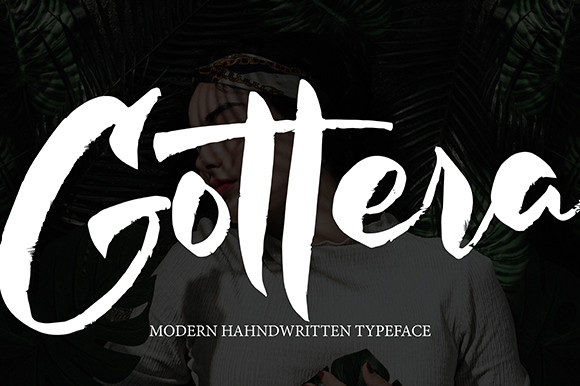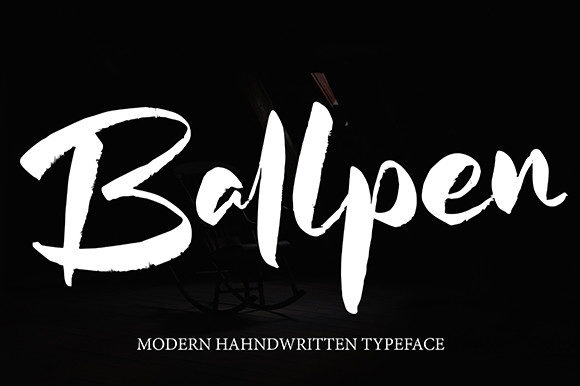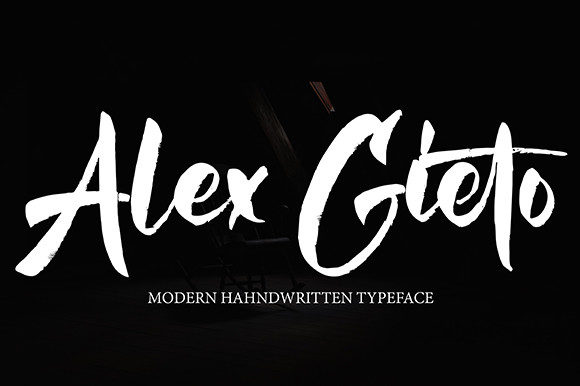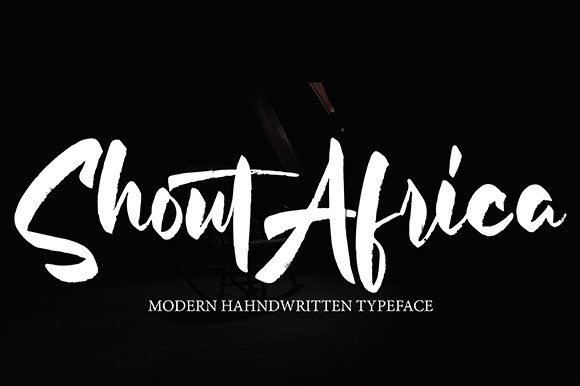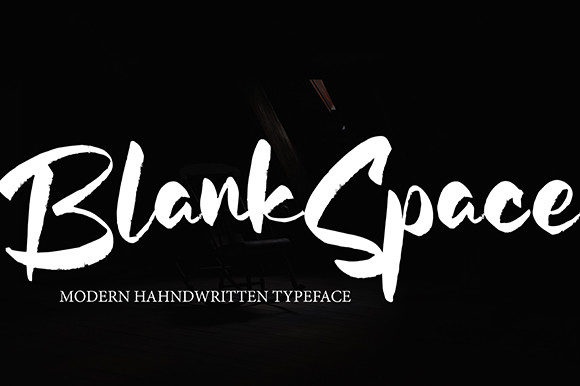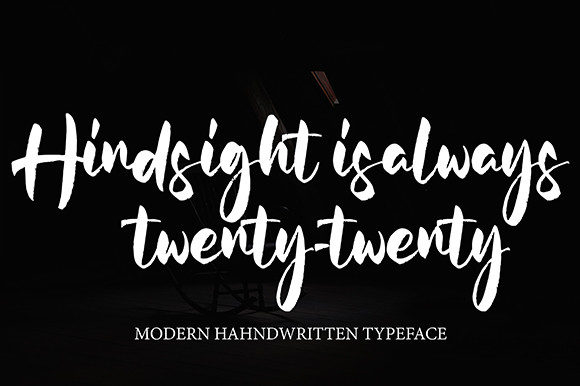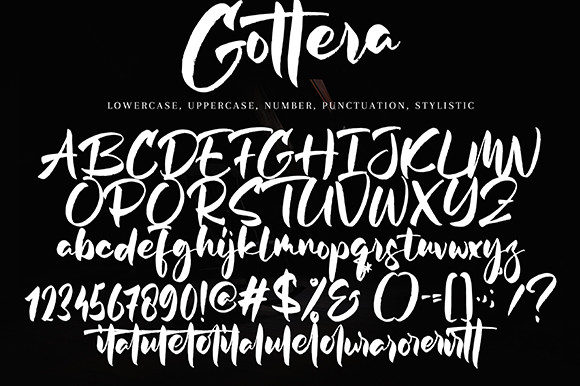
Gottera Font
About Gottera Font
Gottera is a cool, brushed and trendy handwritten font. This font reads as strong, confident, and dynamic and can add tons of stylish character to your designs.